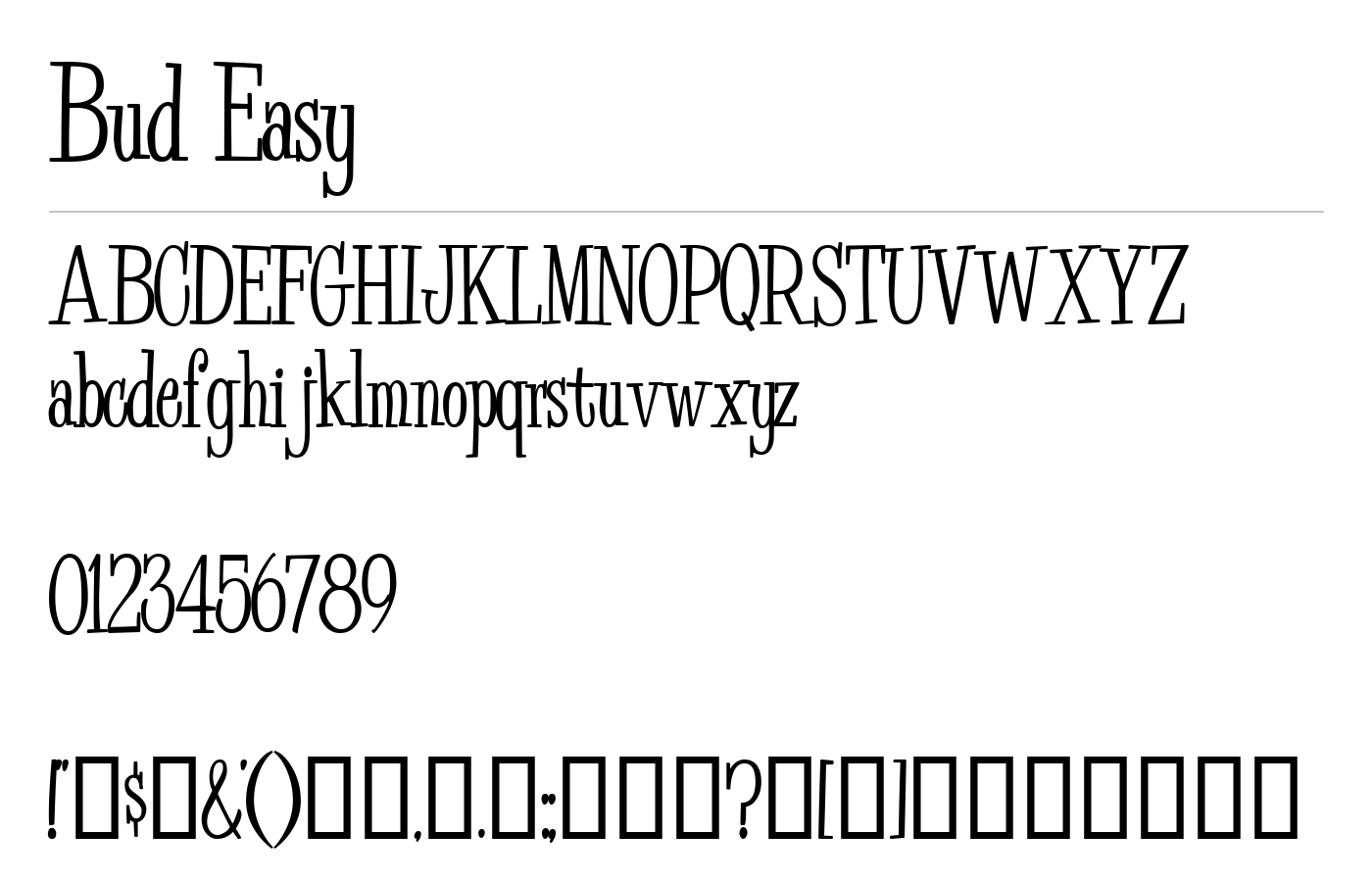
Bud Easy is a tall, narrow serif font with a whimsical, slightly quirky character. Its thin strokes and delicate serifs give it an elegant yet playful feel, making it ideal for creative headlines, invitations, or branding projects that want to stand out with a unique and lighthearted style. This font works best in designs where personality and charm are key, especially in editorial, boutique, or artistic settings.
Bud Easy Font